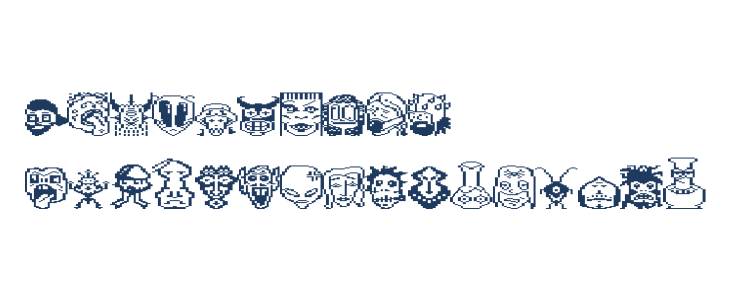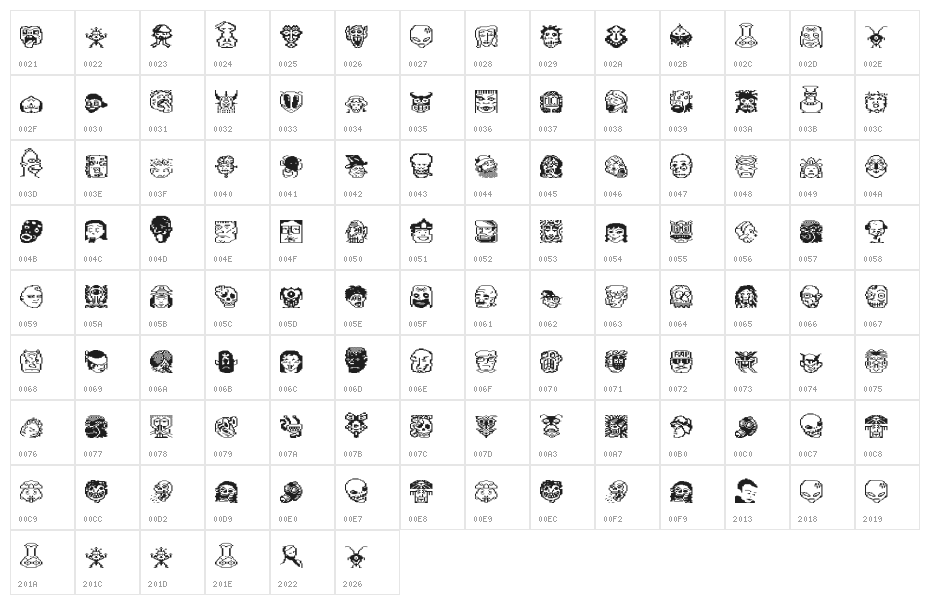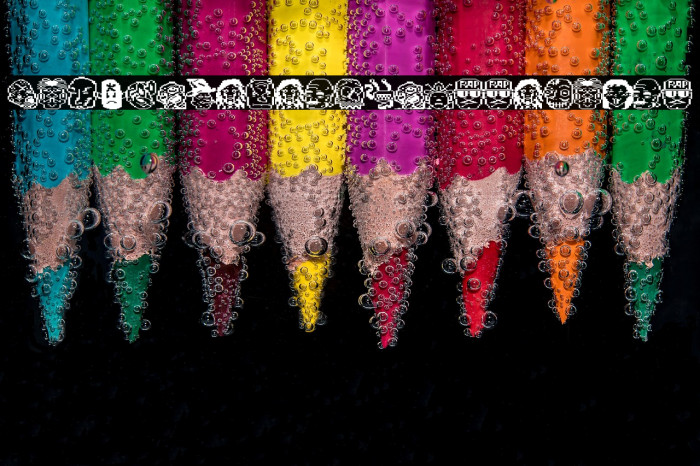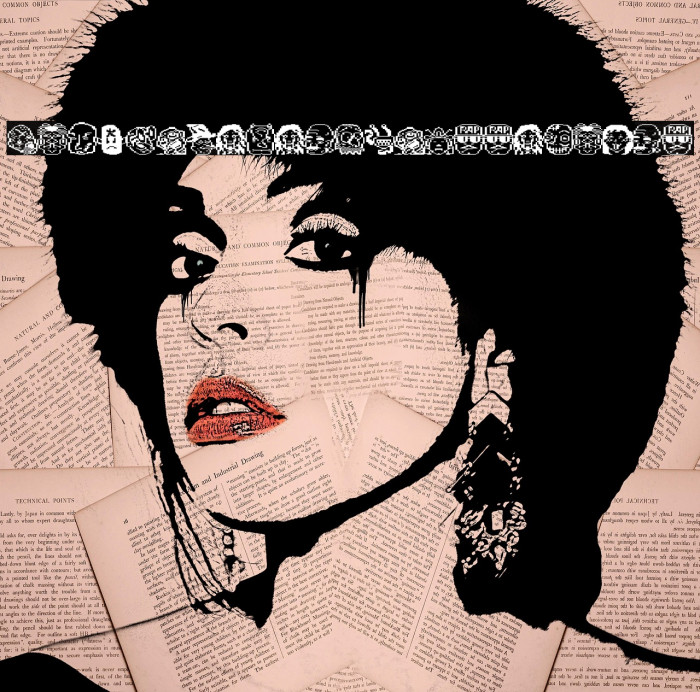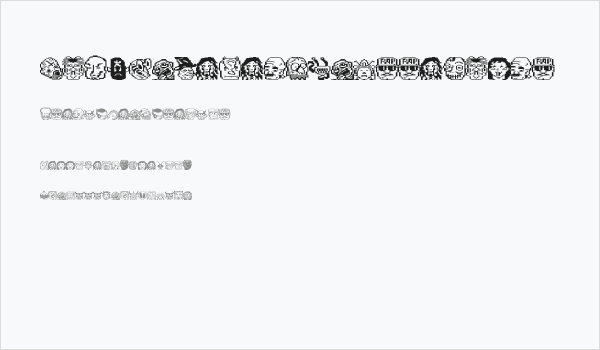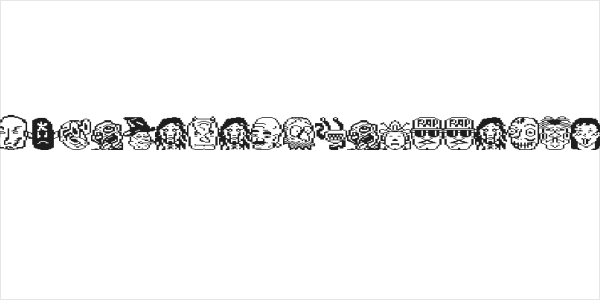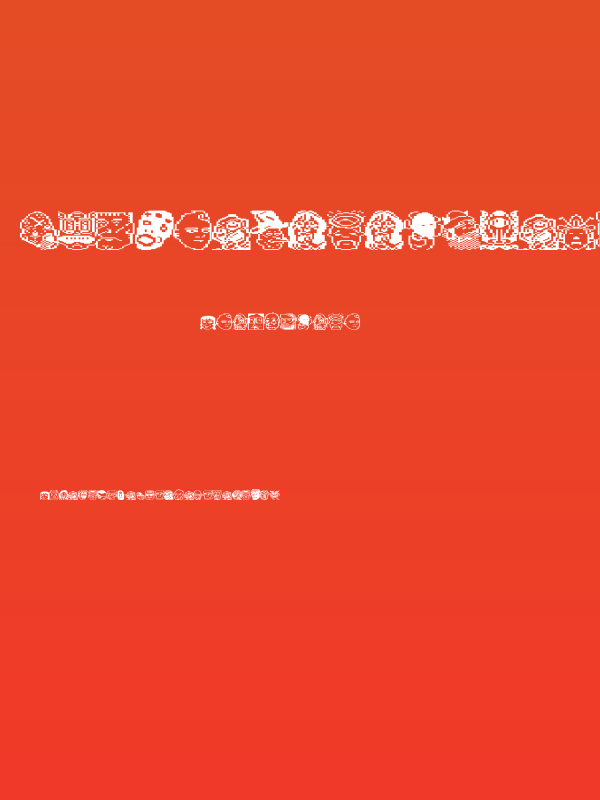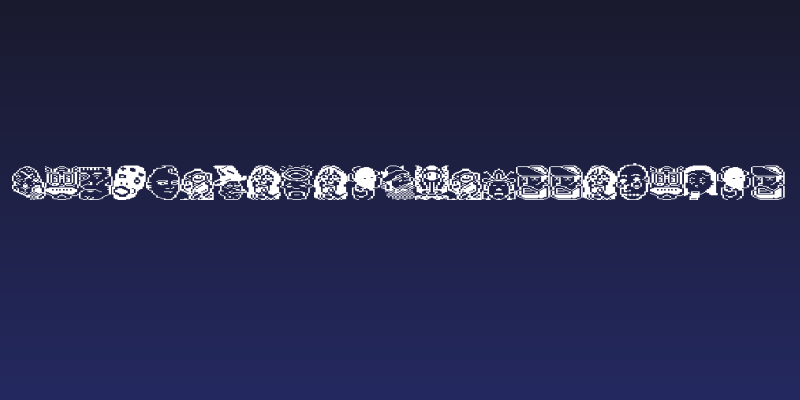
Funky Beheadz Irregular Font
Funky Beheadz Irregular Description
A highly decorative and irregular display font composed entirely of unique, cartoonish and abstract head illustrations for each character, rendered in a bold, black-and-white pixel art style. Each glyph is distinct, with no traditional letterforms, making the font more of a pictorial or dingbat typeface.
| Overall Style | Funky, Irregular, Playful, Artistic |
| Use Case | Logos, Headlines, Posters, Decorative elements |
| Proposed Projects | Posters, album covers, party invitations, comic books, zines, alternative branding, event flyers, creative digital art. |